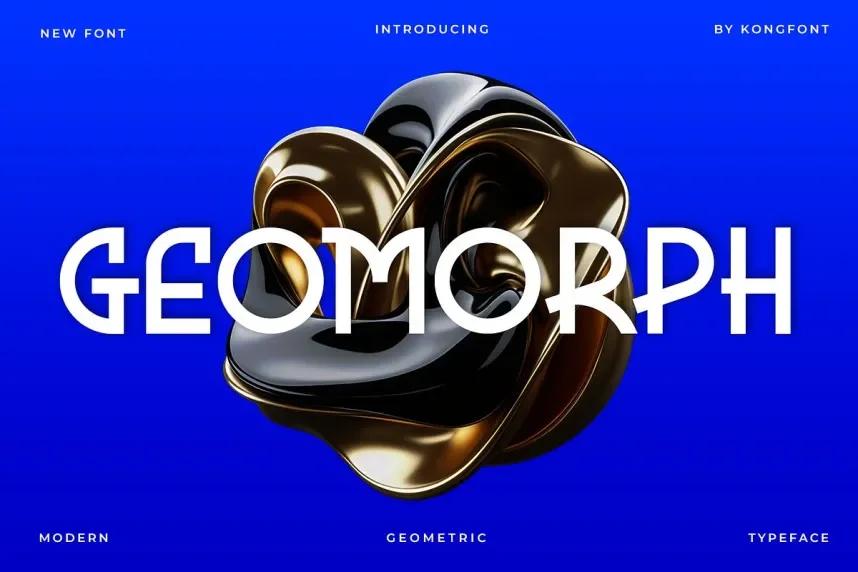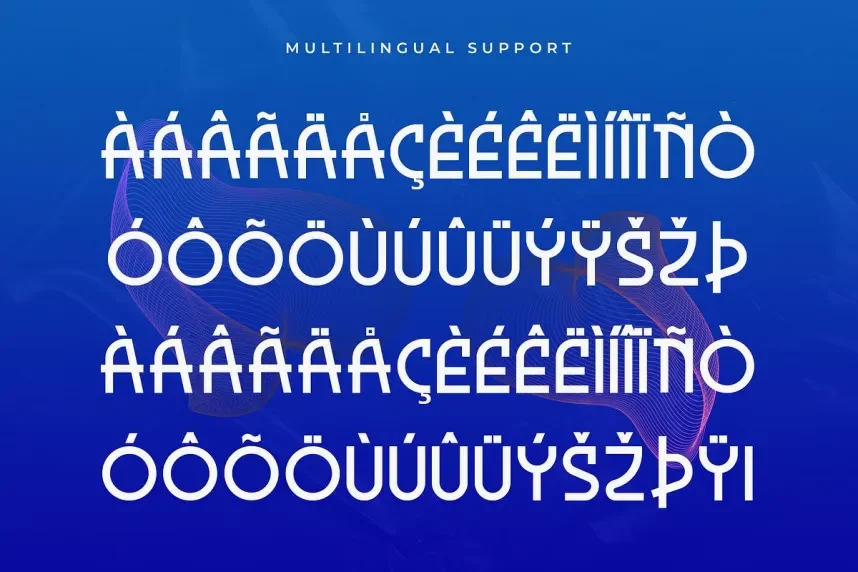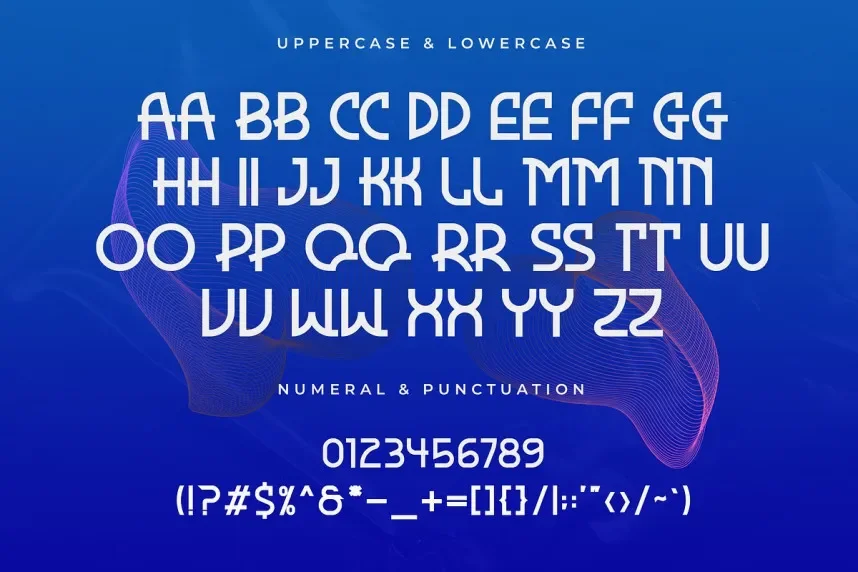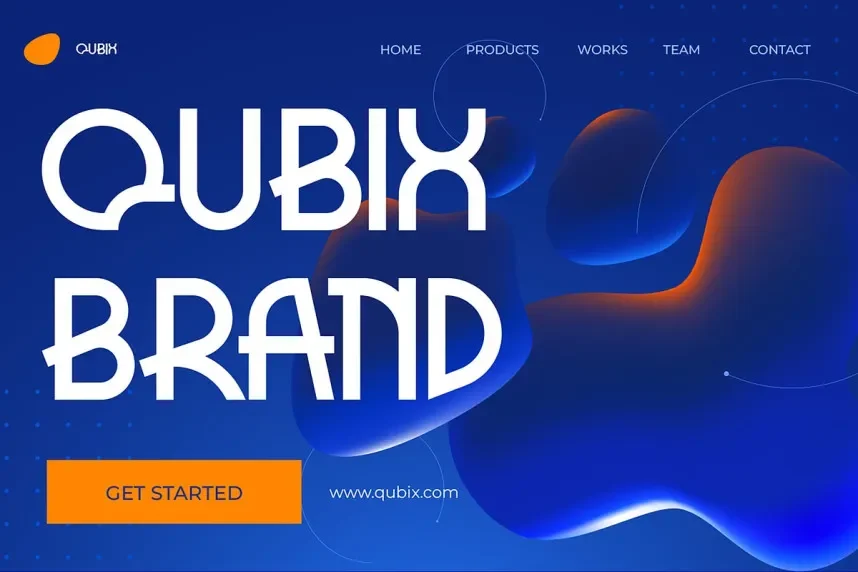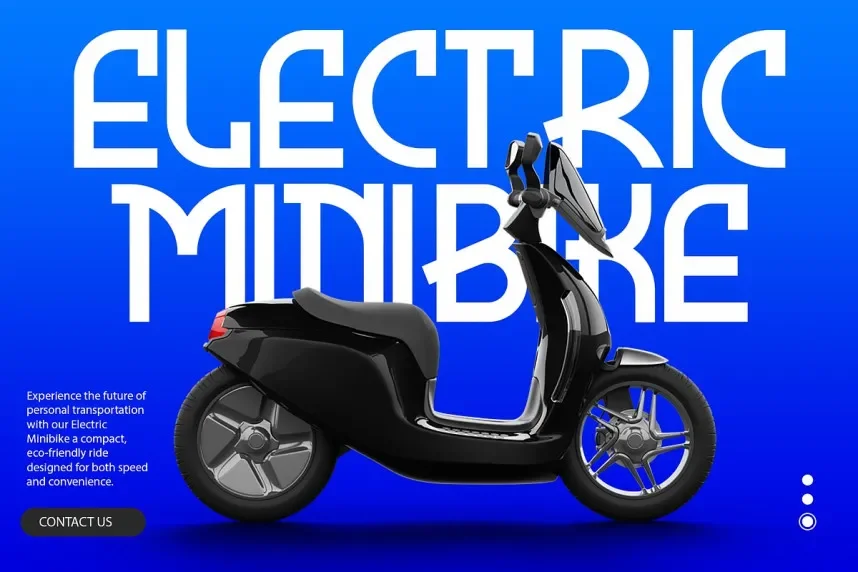
Geomorph Font addresses clarity problems in geometric typography. Many geometric fonts sacrifice legibility when used at small sizes or dense layouts.
Geomorph is a sans-serif typeface featuring precise geometry, uniform stroke widths, and open counters. The letterforms provide balance between modern aesthetics and functional readability.